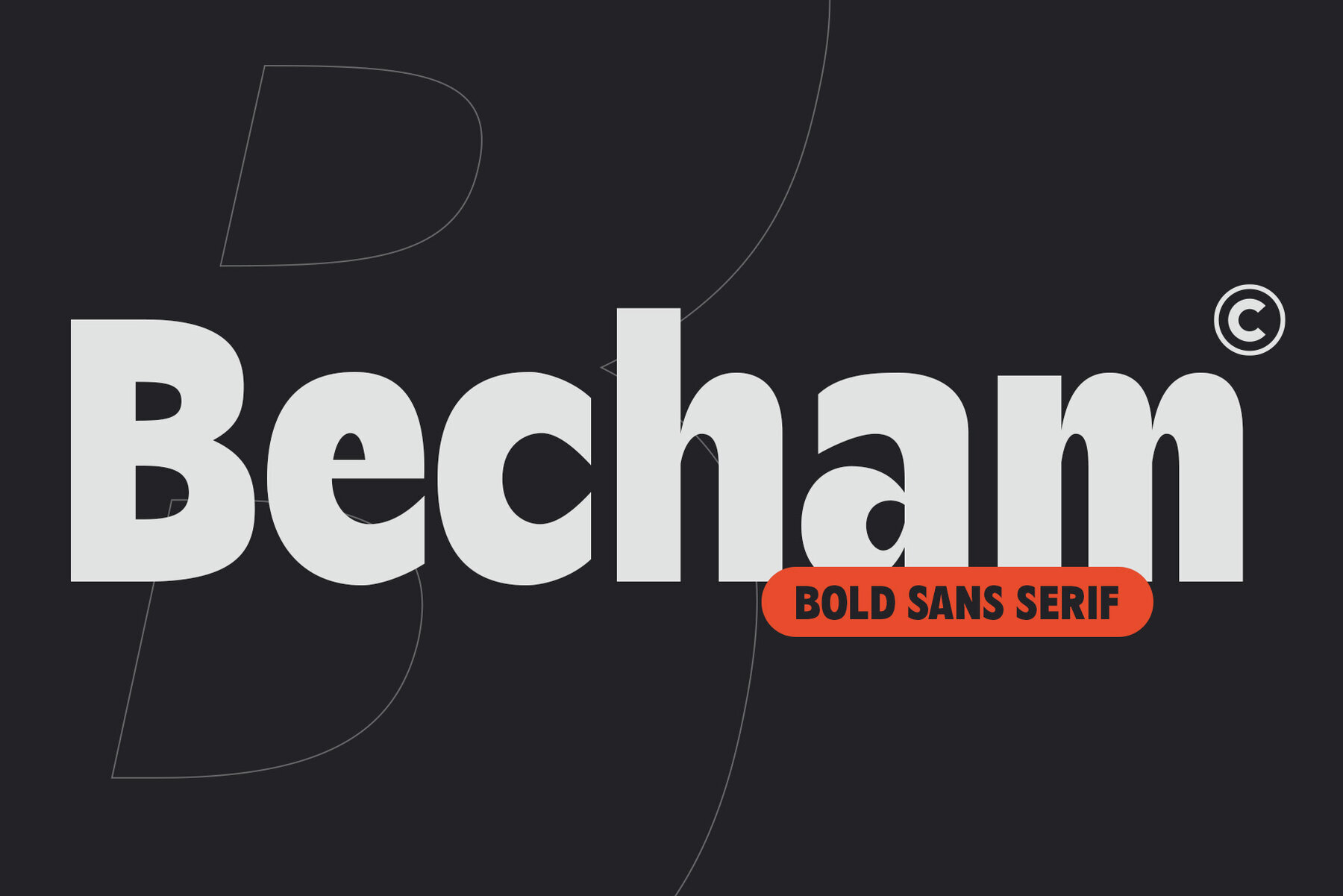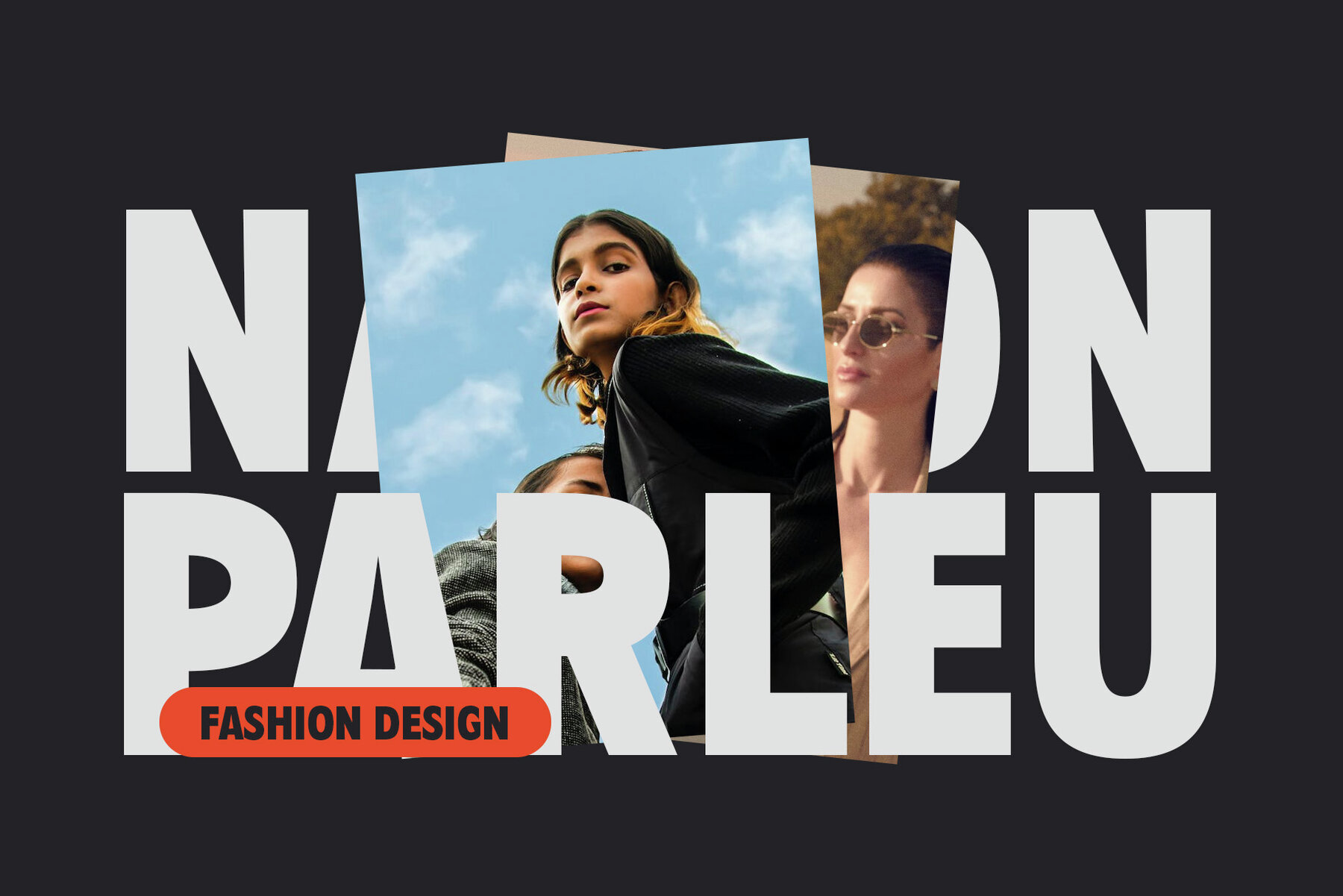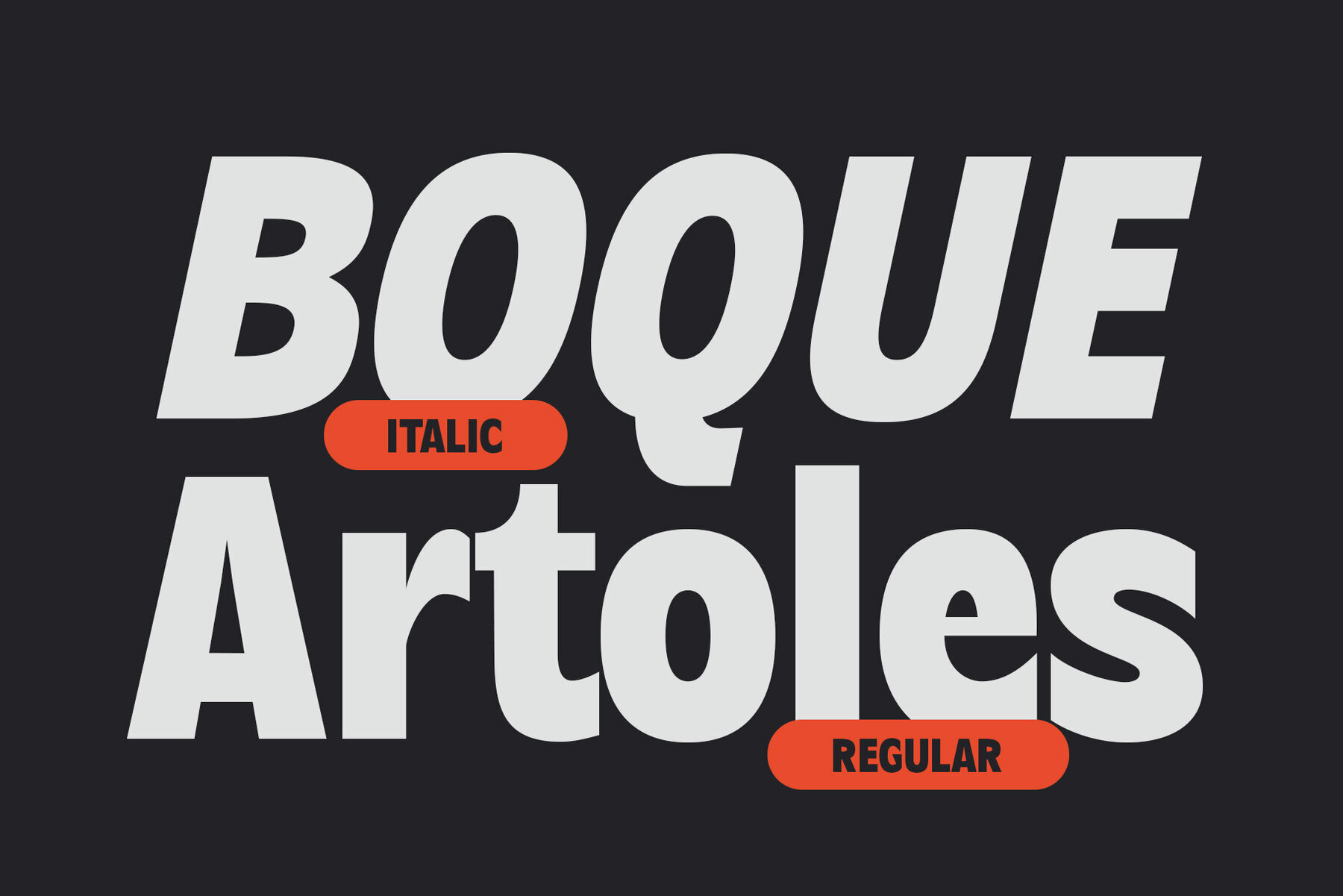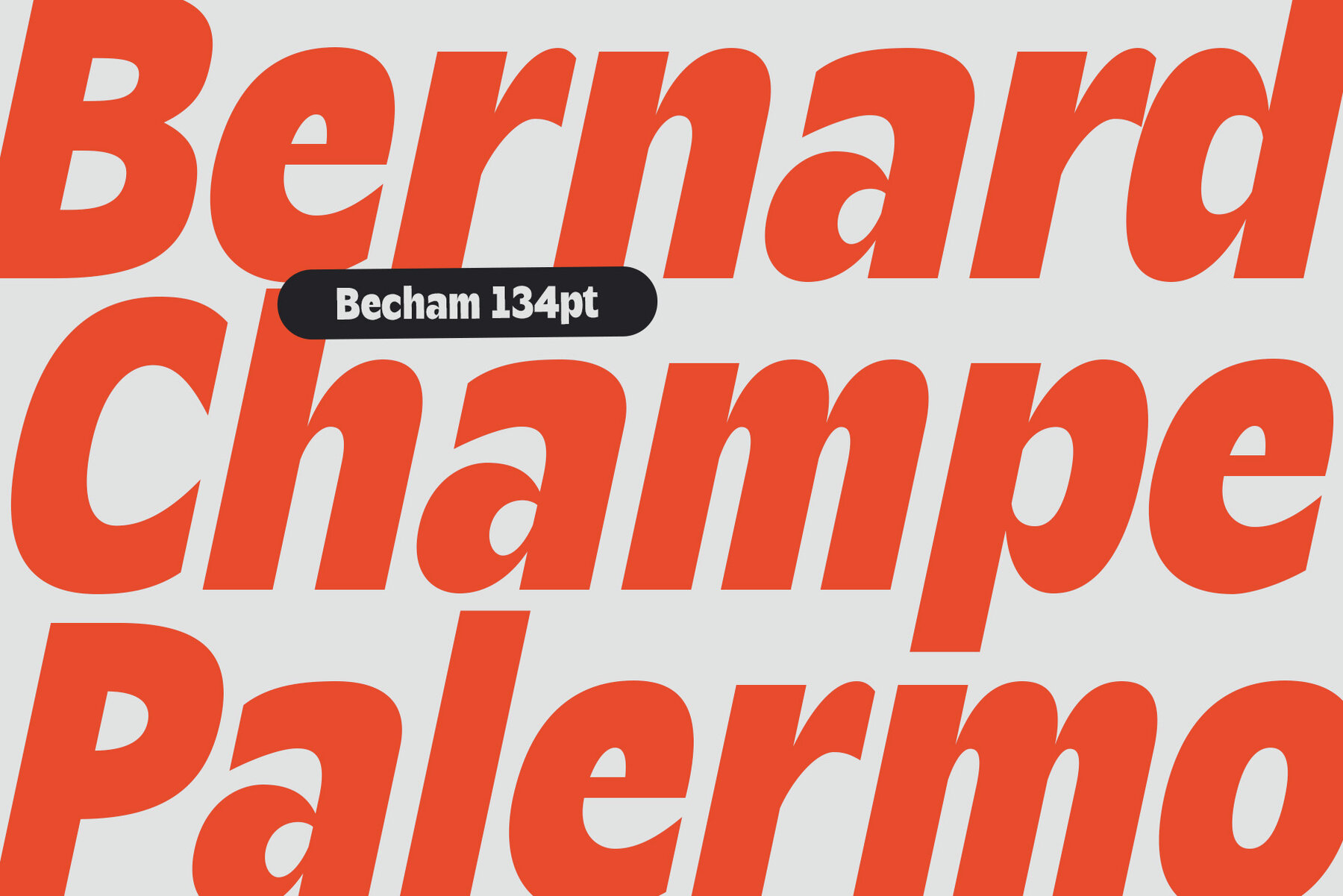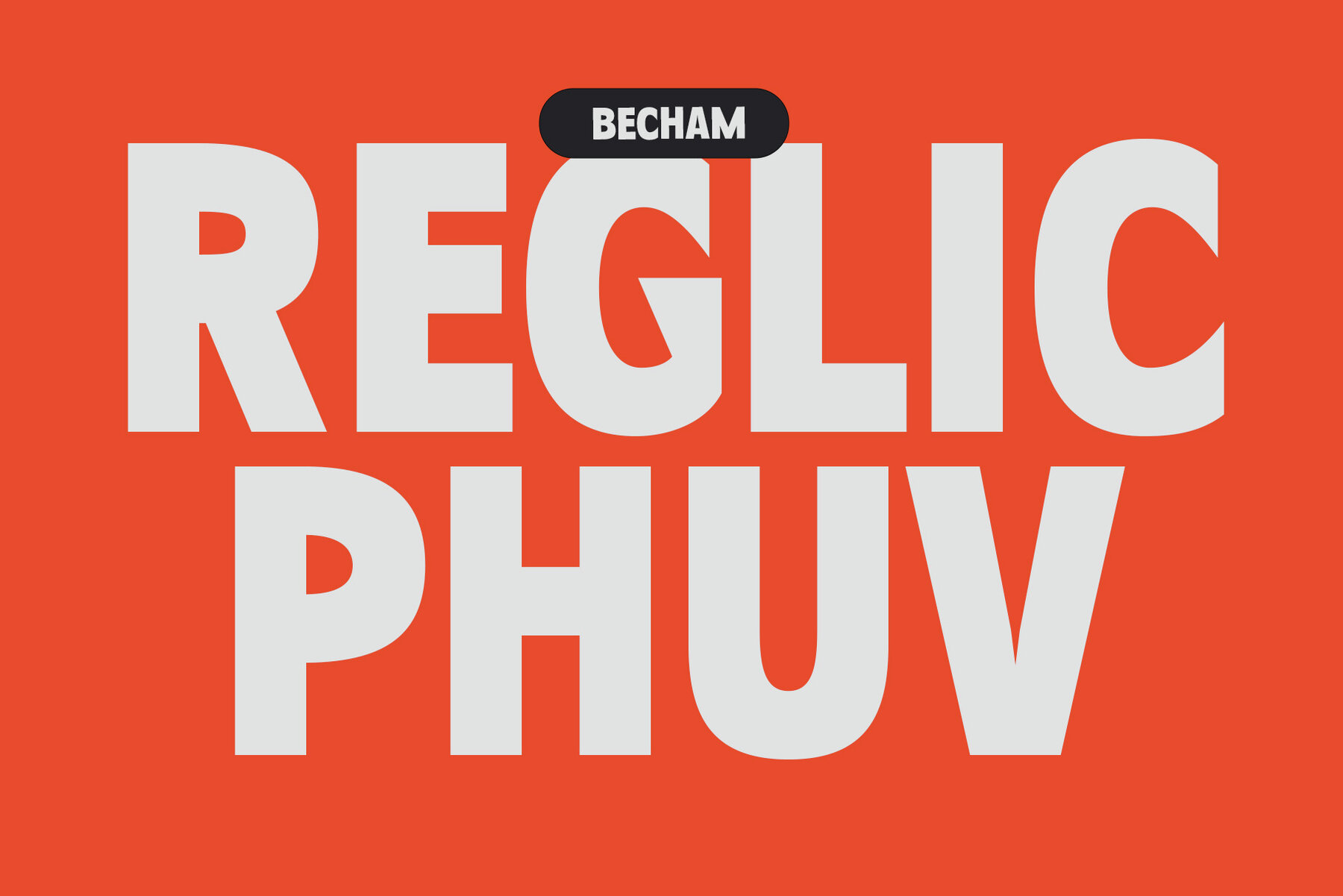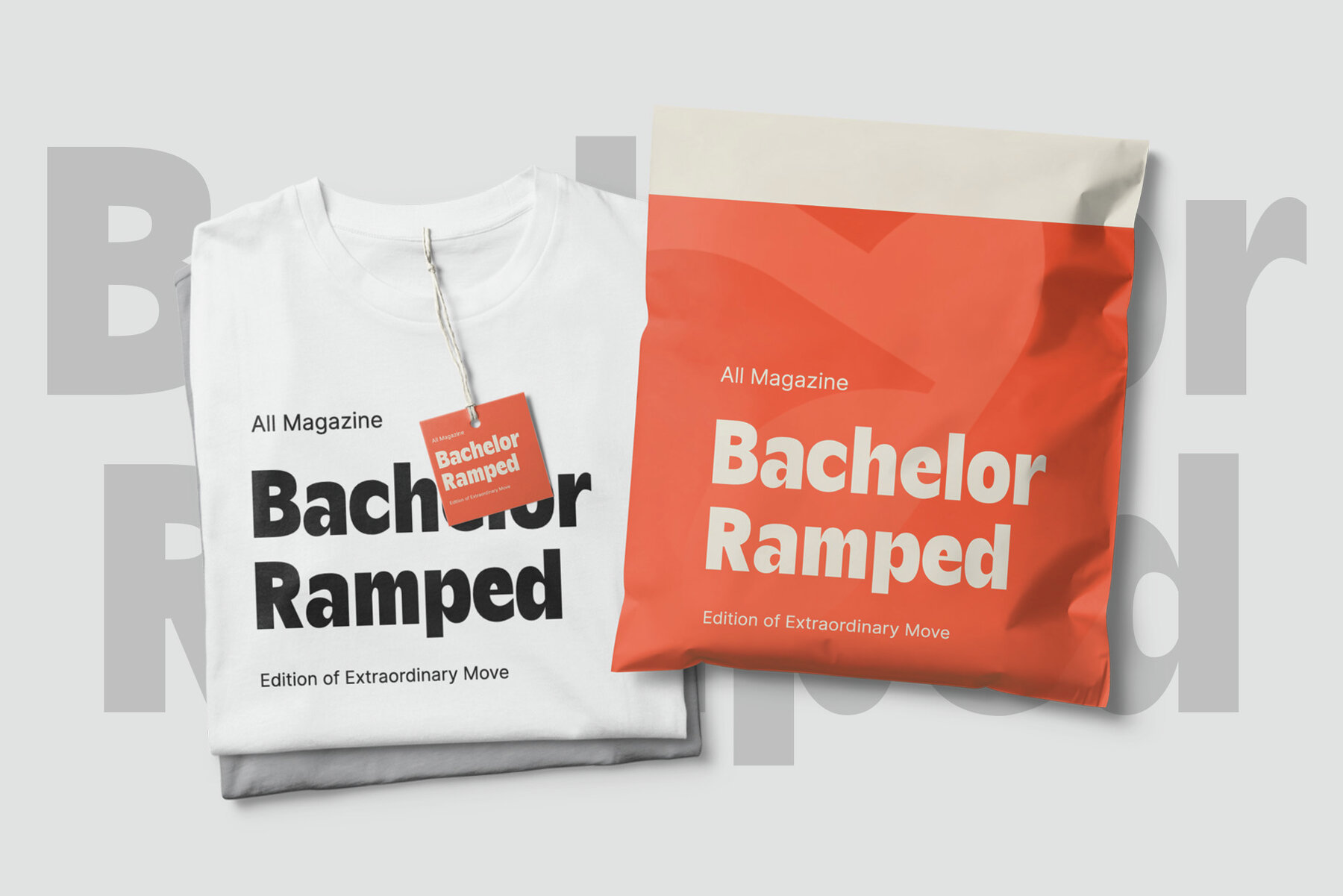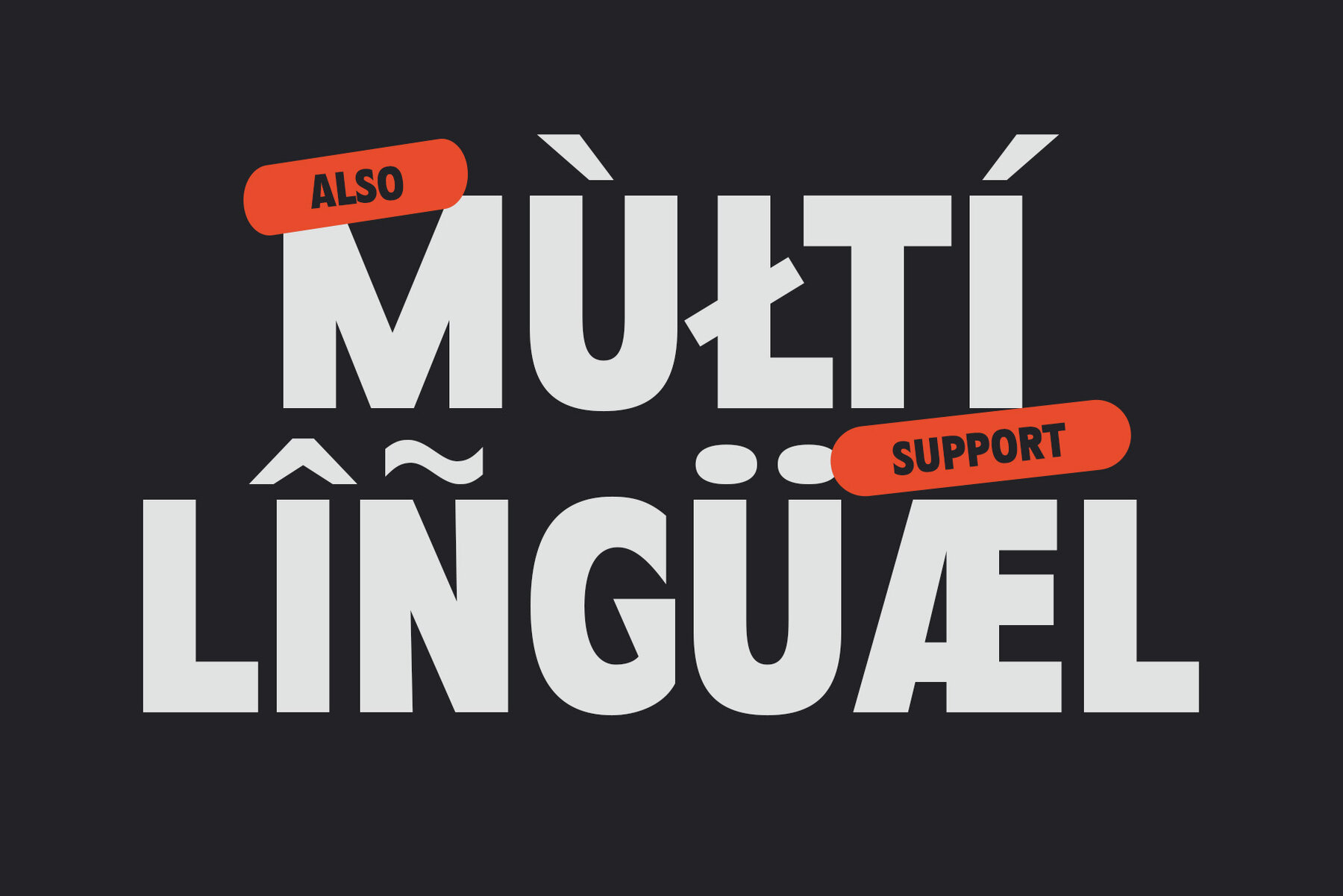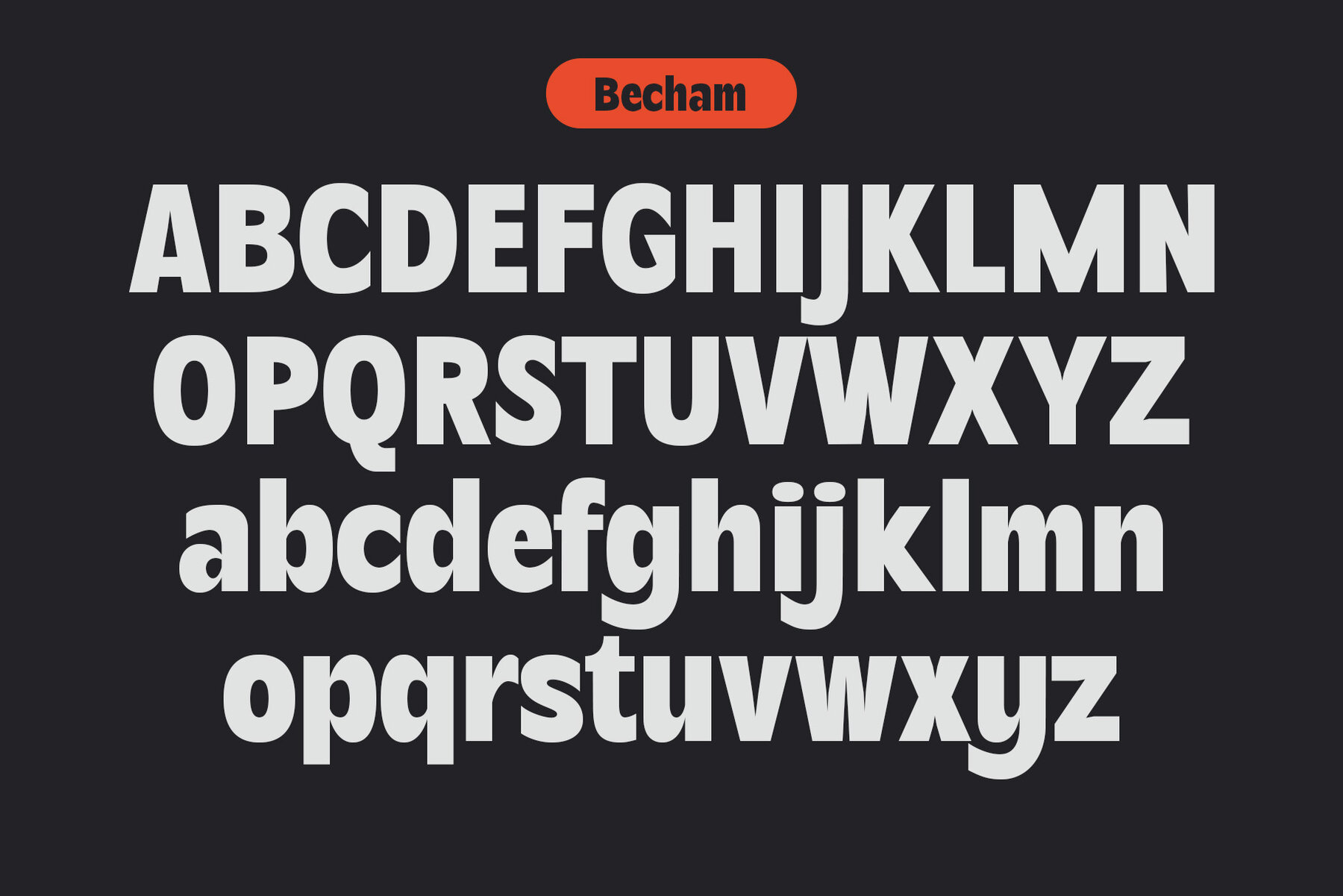
Becham Font
Introducing Becham: A bold sans-serif font that commands attention with its strong presence. With its impactful lines and modern appeal, Becham adds a bold touch to your projects. Elevate your designs with Becham's assertive style, making a striking statement that can't be ignored.